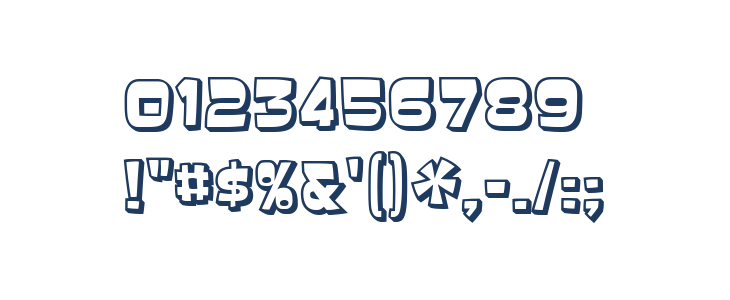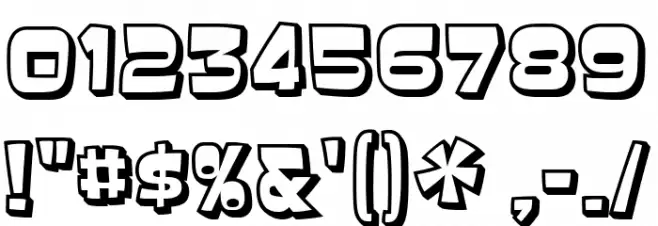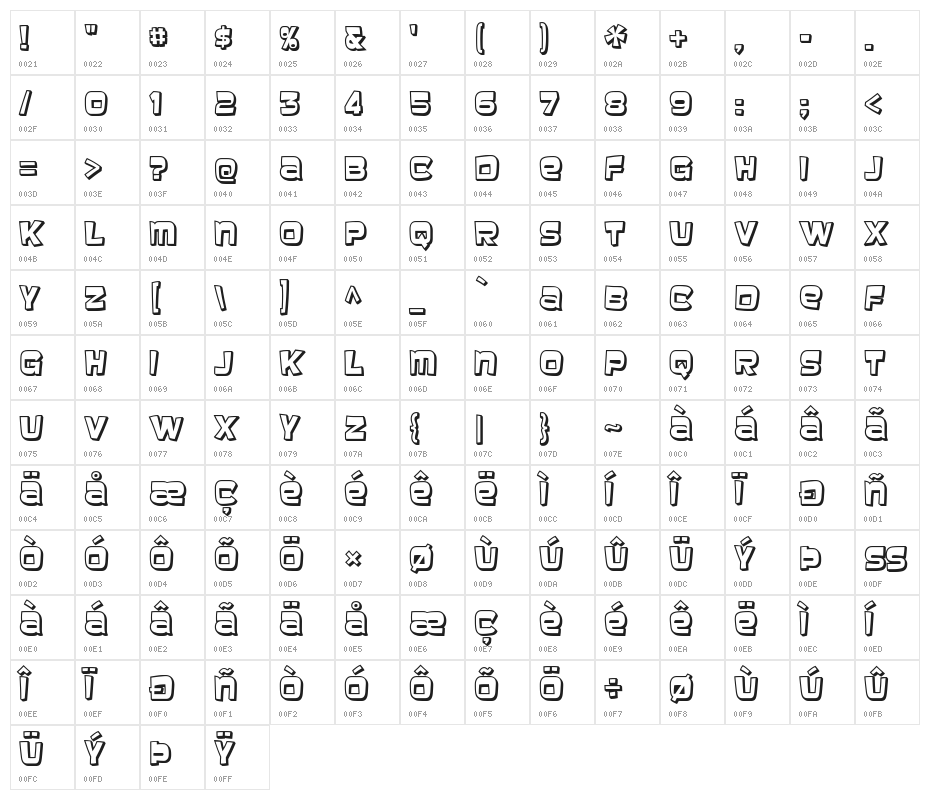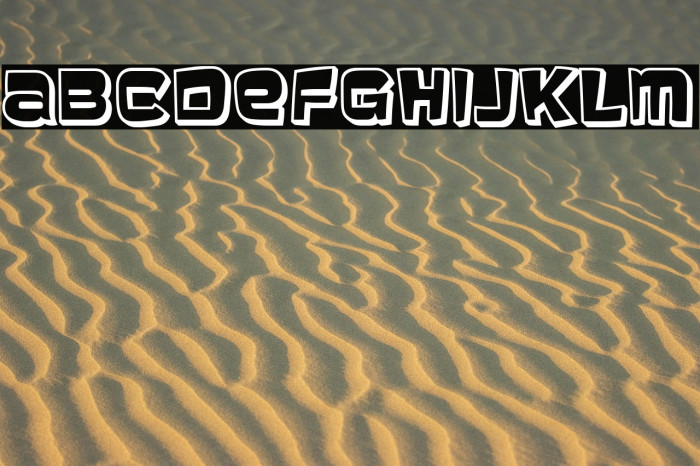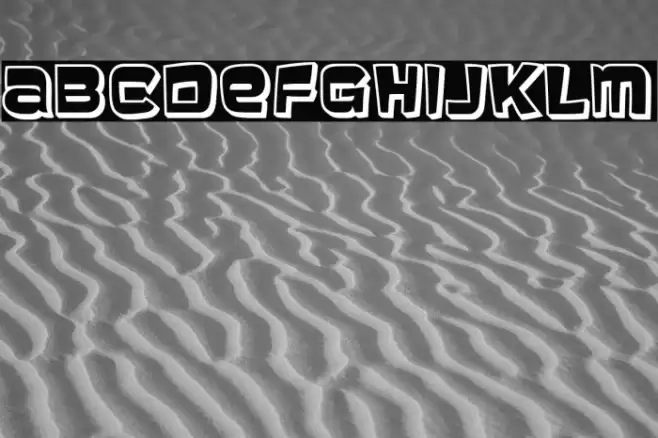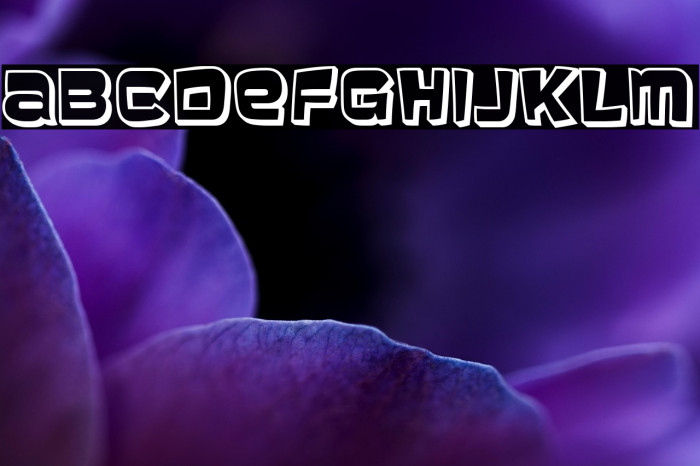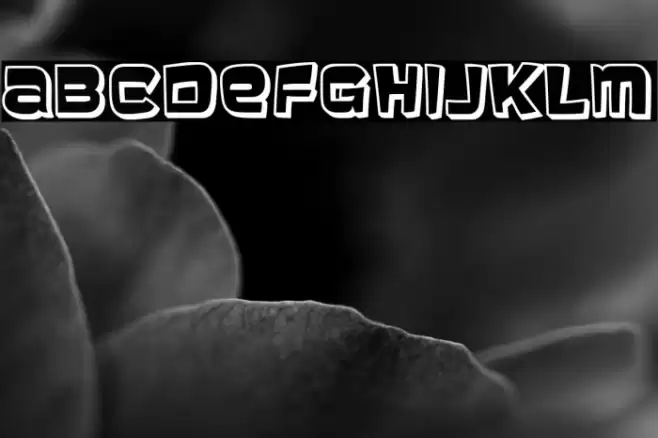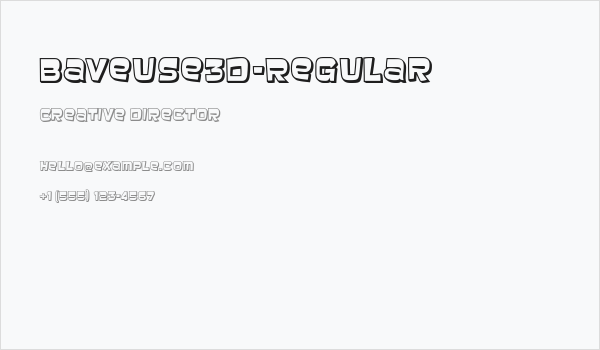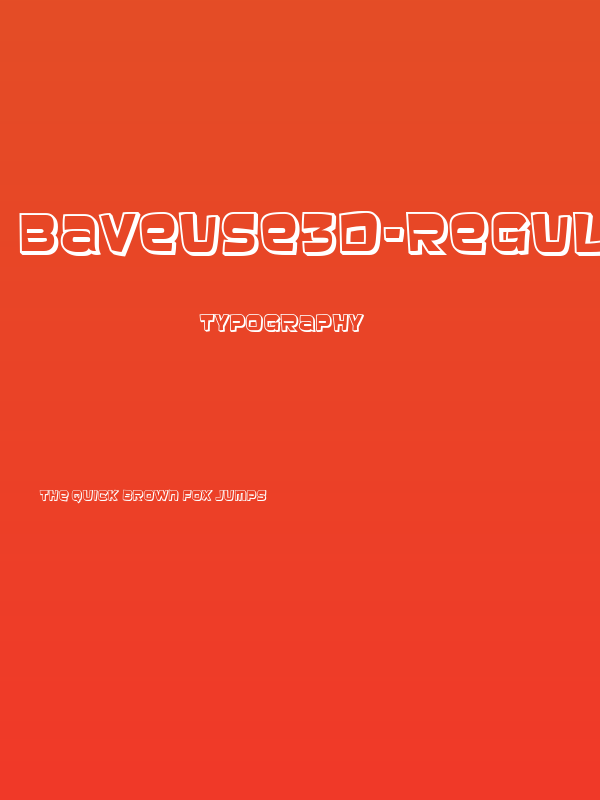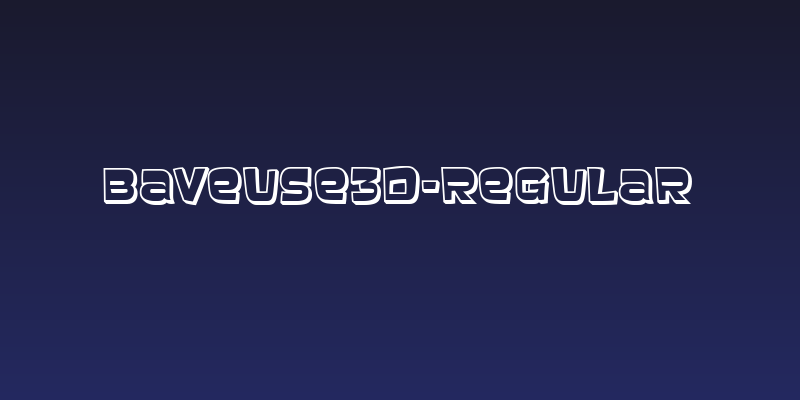
Baveuse3D-Regular Font
Baveuse3D-Regular Description
This font features a bold, three-dimensional style with a playful and dynamic appearance. Each character is outlined, giving it a shadow effect that enhances its 3D look. The letters are uppercase and lowercase, with numbers and a variety of special characters included. The design is consistent across all characters, maintaining a uniform thickness and a slightly rounded edge that adds to its approachable and fun aesthetic. This font is ideal for projects that require a lively and eye-catching typeface.
| Proposed Projects | Perfect for comic books, children's book covers, posters, and playful branding. |